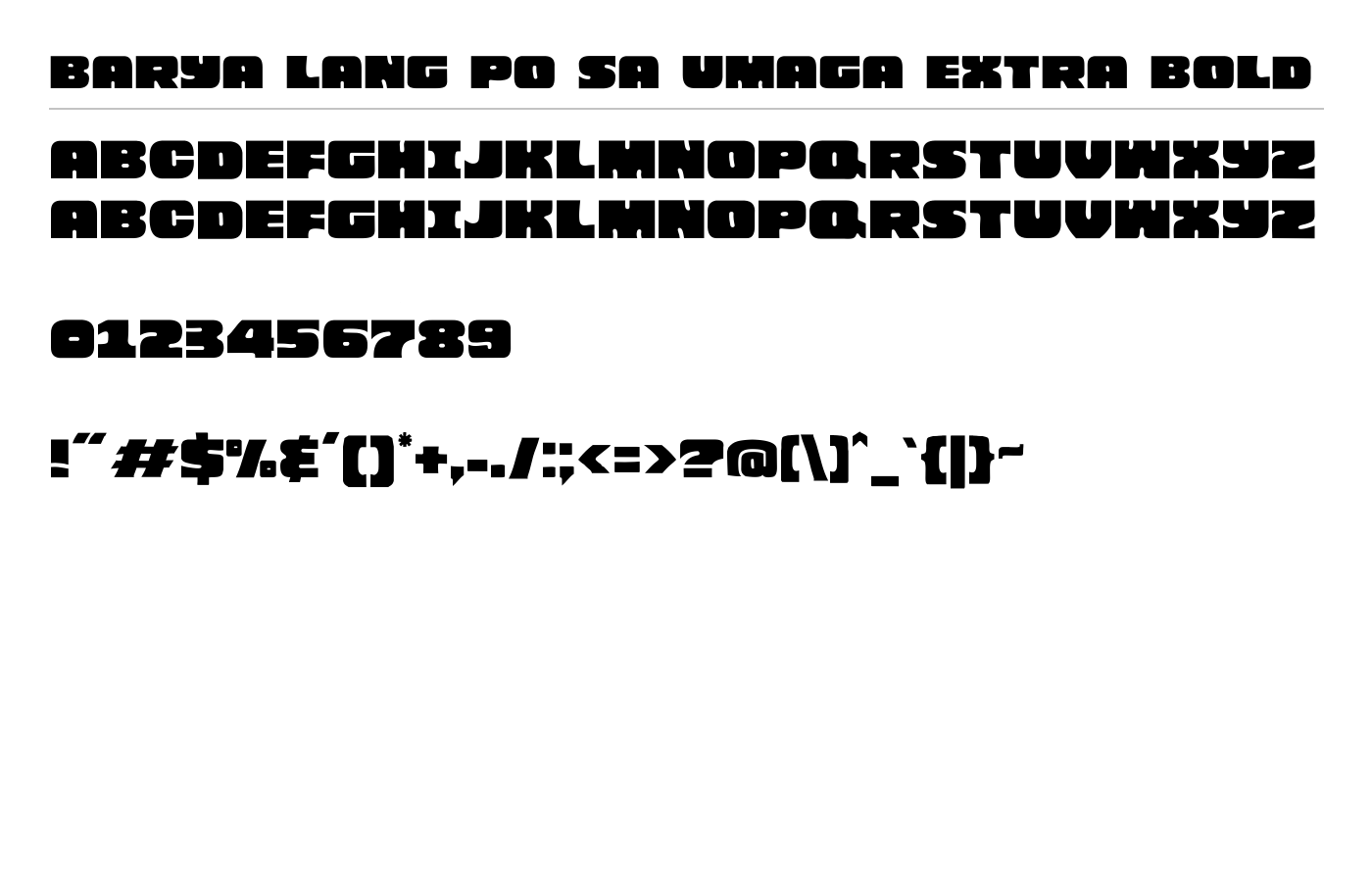
BARYA LANG PO SA UMAGA is a bold, heavy-weight display font with thick, blocky letterforms that have a strong, sturdy presence. Its uppercase-only style and wide, tightly spaced characters give it a powerful and impactful look, making it ideal for headlines, logos, and attention-grabbing designs that want to convey strength and confidence. This font works best in creative and bold branding projects, posters, or packaging where a lively, modern, and assertive personality is desired.
BARYA LANG PO SA UMAGA Font
About BARYA LANG PO SA UMAGA Font
| Font family | BARYA LANG PO SA UMAGA Font |
| Designer | Jéson Garnica |